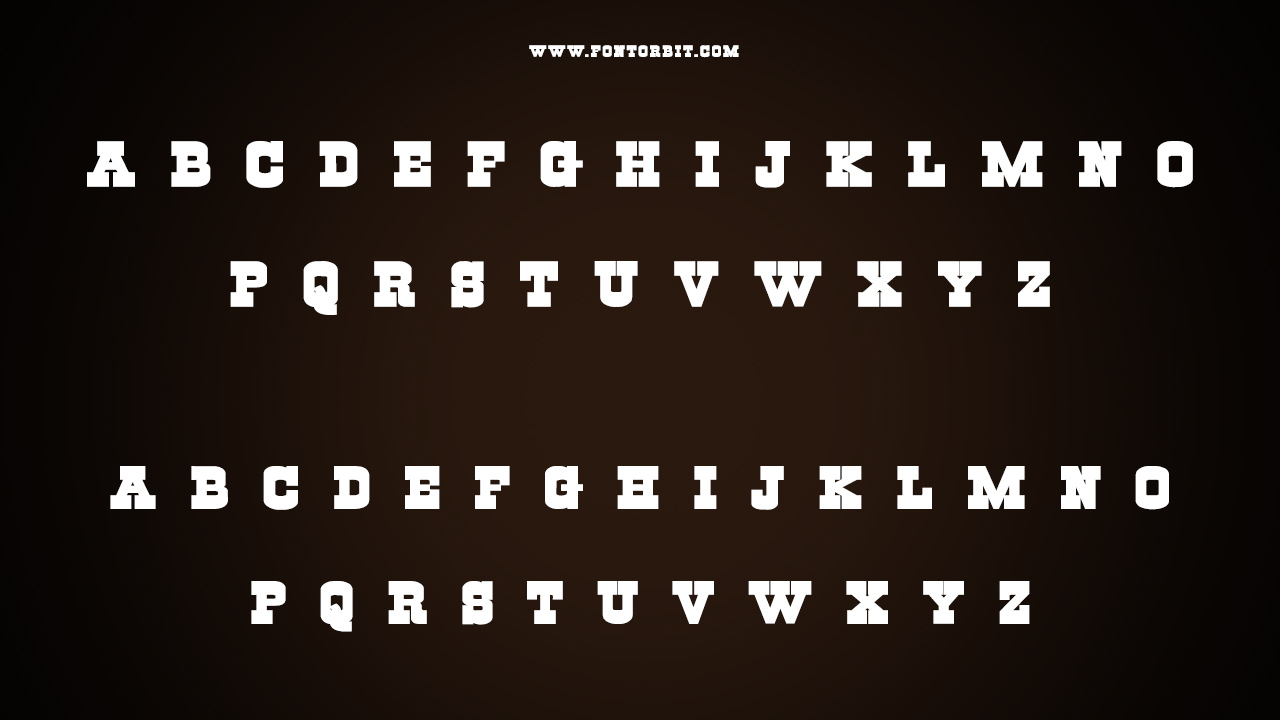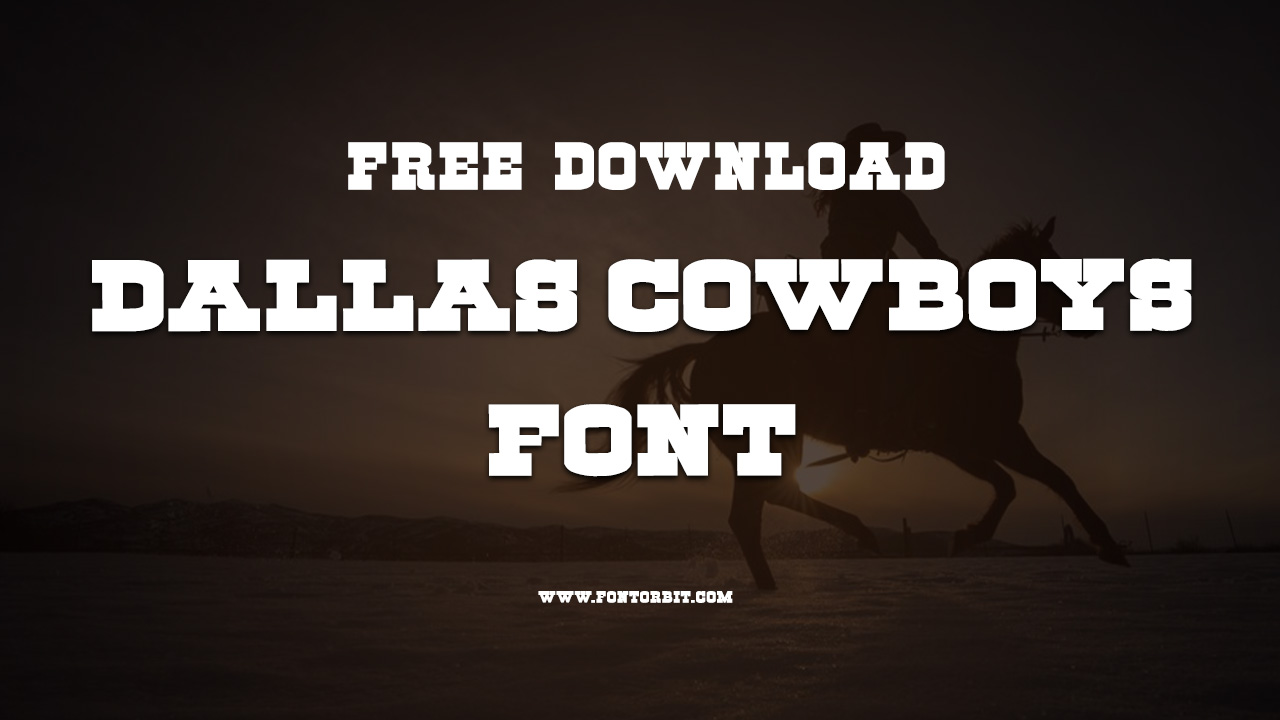
The Dallas Cowboys Font is a stylish and iconic typeface closely associated with the NFL team’s logo. It exudes a strong, bold, and Western-inspired aesthetic that mirrors the team’s roots and identity.
The Cowboys Font was created by Sharkshock, a well-known designer, and was first released in the early 2000s. It belongs to the decorative font family, making it ideal for special occasions and branding rather than body text.
This font family includes various styles to provide flexibility in design. The Cowboys font family consists of multiple weights and styles that are perfect for a variety of uses, including sports branding and promotional materials. Here is a breakdown of the Cowboys Font Family:
Notable Uses Of Cowboys Font
The Dallas Cowboys font has seen widespread use beyond just the team’s logo. Designers often use it for projects that require a strong, masculine, and athletic theme. Notable uses of this font include:
- Dallas Cowboys official merchandise
- Sports posters and memorabilia
- Athletic event banners and digital graphics
- College and high school sports teams’ promotional materials
- Sports gaming covers and advertising
You should use this font when designing for any sports-related or western-themed projects. Its bold and heavy style works well for logos, banners, and headings. This font is perfect for:
- Sports team logos and uniforms
- Event posters and banners
- Gaming projects
- Advertisements for sports events
- Product packaging related to athletics or outdoor activities
The Dallas Cowboys Font is more than just a logo font. It carries with it a sense of tradition, strength, and pride, making it ideal for designs where a bold statement is required. Whether you are a designer working on sports branding or just a fan wanting to use the font for a personal project, the Cowboys font can be a great addition to your collection.
4.Is There A Bold Version Of The Cowboys Font?
Yes, there is a bold variant of the Cowboys font.
6.What Type Of Projects Is The Cowboys Font Best Suited For?
It’s best for sports branding, event posters, and Western-themed projects.
7.Does The Cowboys Font Support Multiple Languages?
Most versions support basic Latin characters, but it’s best to verify the specific version.